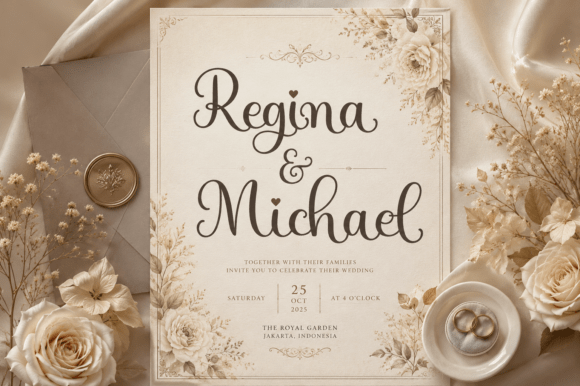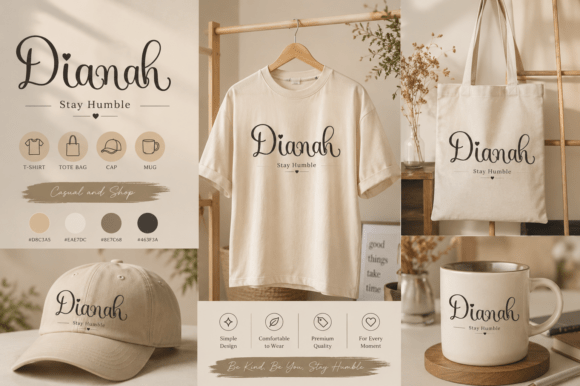
The Elusive Perfect Font: My Encounter with Byetiga
I still remember the countless hours I spent scrolling through font libraries, searching for the perfect typeface for a wedding invitation project. My client wanted something elegant, yet playful; classic, yet modern. It was as if I was searching for a needle in a haystack. That’s when I stumbled upon Byetiga, a graceful modern calligraphy font that instantly caught my attention. In this article, I’ll share my experience with Byetiga, its features, and how to make the most of this beautiful font.
A First Impression: What I Love About Byetiga
Byetiga is a stunning example of modern calligraphy, blending elegant curves with playful handcrafted charm. Here are some features that I absolutely love:
- ✨ Elegant swashes and delicate loops that add a touch of sophistication
- ✅ Heart-shaped accents that bring a playful, whimsical feel
- ✨ Flowing letter connections that create a romantic, stylish impression
- ✅ Smooth strokes and decorative flourishes that make every word appear artistic and personal
While Byetiga has stolen my heart, it’s not without its quirks. Here are some limitations to keep in mind:
- 🤔 Limited multilingual support, so be sure to check compatibility before use
The Story Behind Byetiga: Designer Inspiration
Byetiga’s story begins with a passion for calligraphy and a desire to create a font that embodies both elegance and playfulness. Inspired by the flowing scripts of traditional calligraphy, the designer aimed to craft a typeface that feels both soft and expressive. The result is a font that combines classic script elegance with a modern, whimsical touch.
| Font Name | Byetiga Font |
| Author | Infontree |
| What makes Byetiga suitable for feminine branding? | Byetiga’s elegant curves, delicate loops, and heart-shaped accents create a romantic and stylish impression, making it perfect for feminine branding and creative projects. |
| Does Byetiga support multilingual languages? | Byetiga has limited multilingual support. It’s best to check compatibility before using it for non-English languages. |